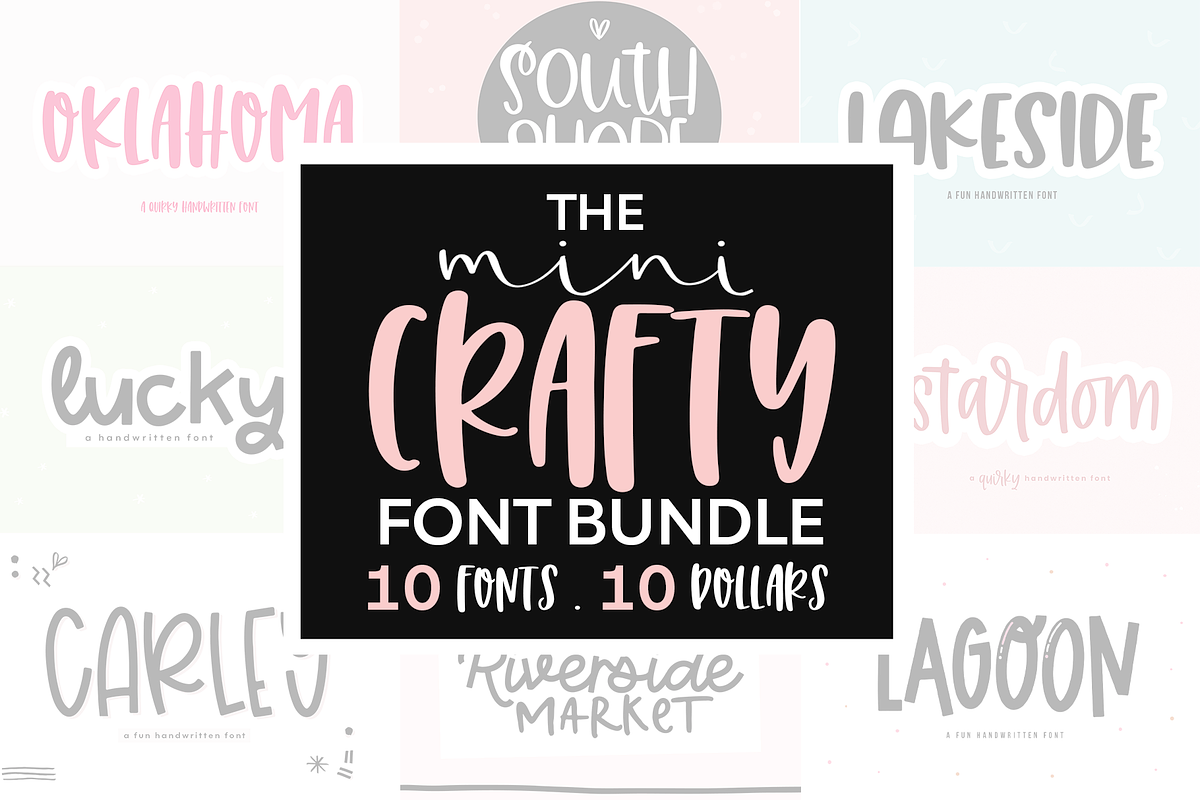
Mini Crafty Font Bundle Free Download
Add handmade charm to your designs with the Mini Crafty Font Bundle Free Download — a delightful collection of playful, hand-drawn typefaces perfect for crafters, creators, and DIY lovers. This bundle is ideal for greeting cards, stickers, t-shirt designs, scrapbooking, small business branding, and all things colorful and crafty!
Each font in the bundle carries its own unique personality — from bubbly and cute to quirky and fun. Whether you're designing for kids, handmade products, or personalized gifts, the Mini Crafty Font Bundle brings warmth and originality to every project.